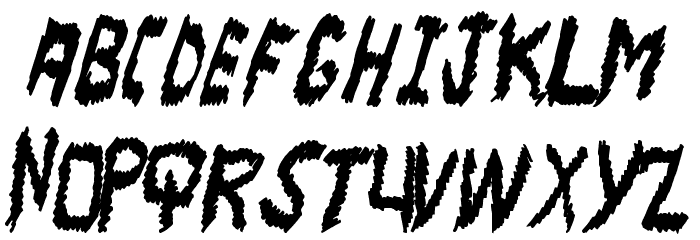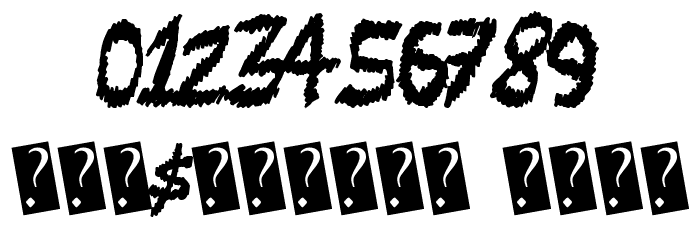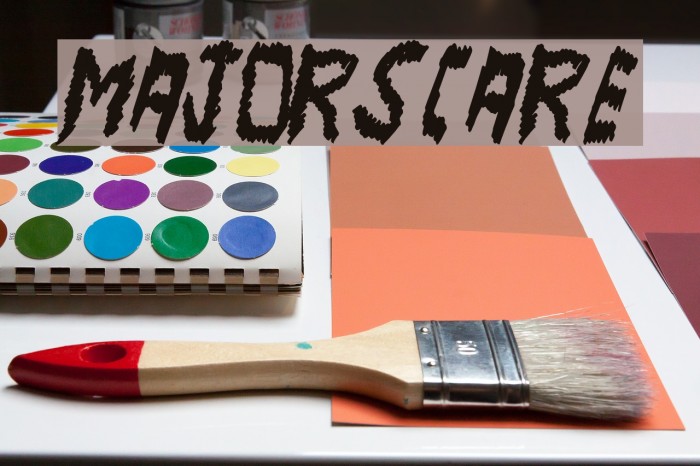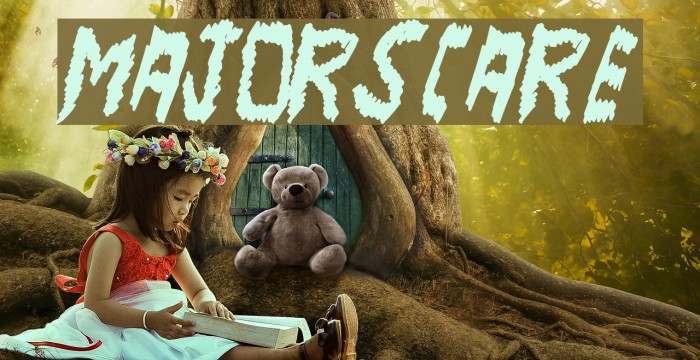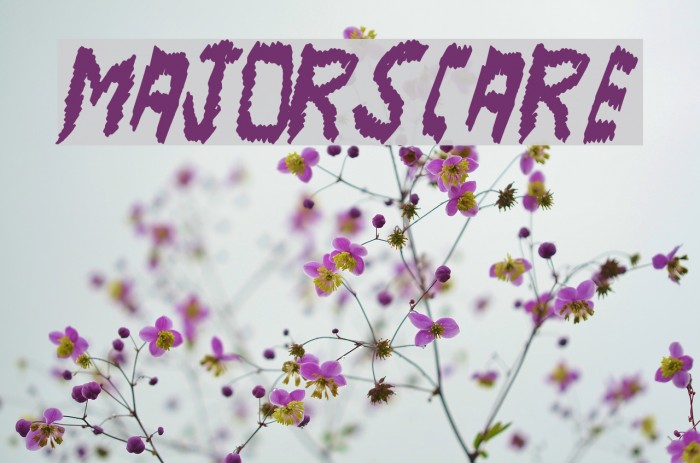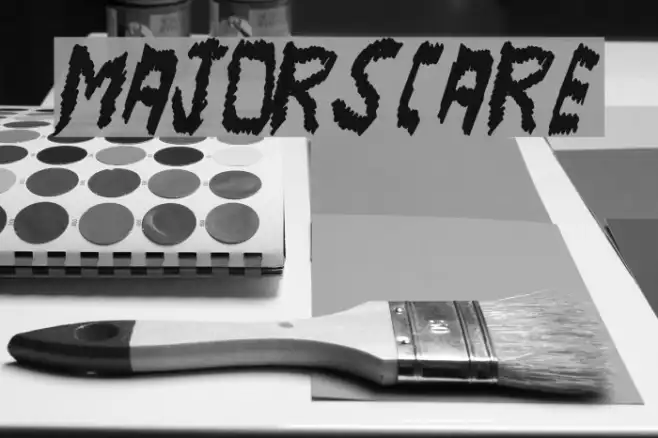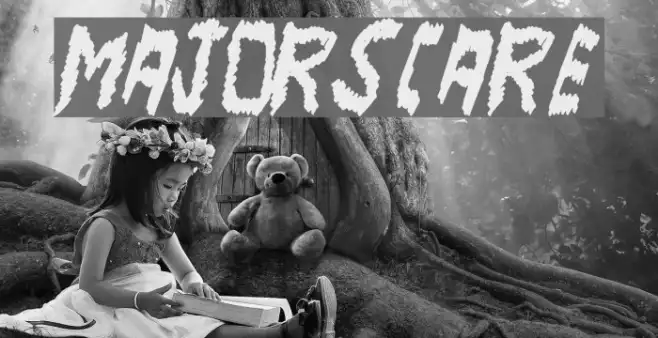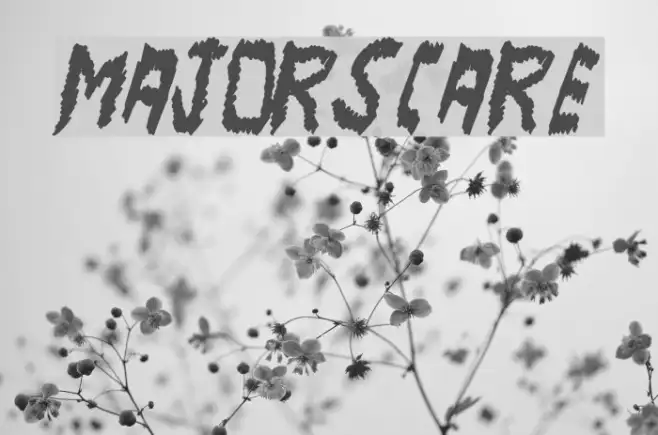
MajorScare Font
This font features a jagged, edgy design that evokes a sense of horror and excitement. The characters are bold and irregular, with sharp, serrated edges that give them a dynamic and unsettling appearance. The uppercase and lowercase letters maintain a consistent style, with each character appearing as if it has been torn or shredded. The numbers and special characters follow the same aesthetic, ensuring a cohesive look across all text. This font is perfect for creating a spooky or thrilling atmosphere, ideal for Halloween-themed projects or anything requiring a dramatic flair.
A jagged, horror-themed font with sharp, serrated edges.
- Proposed Projects: Ideal for Halloween invitations, horror movie posters, haunted house flyers, and spooky-themed merchandise.